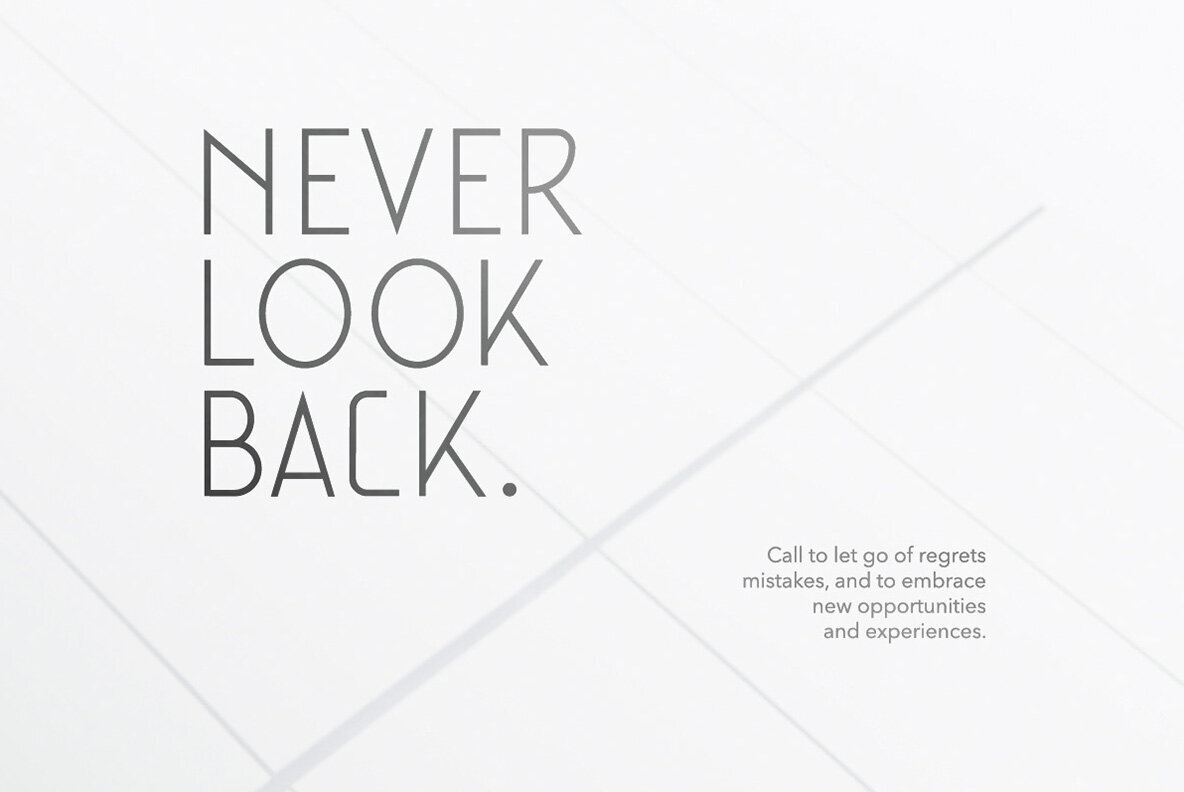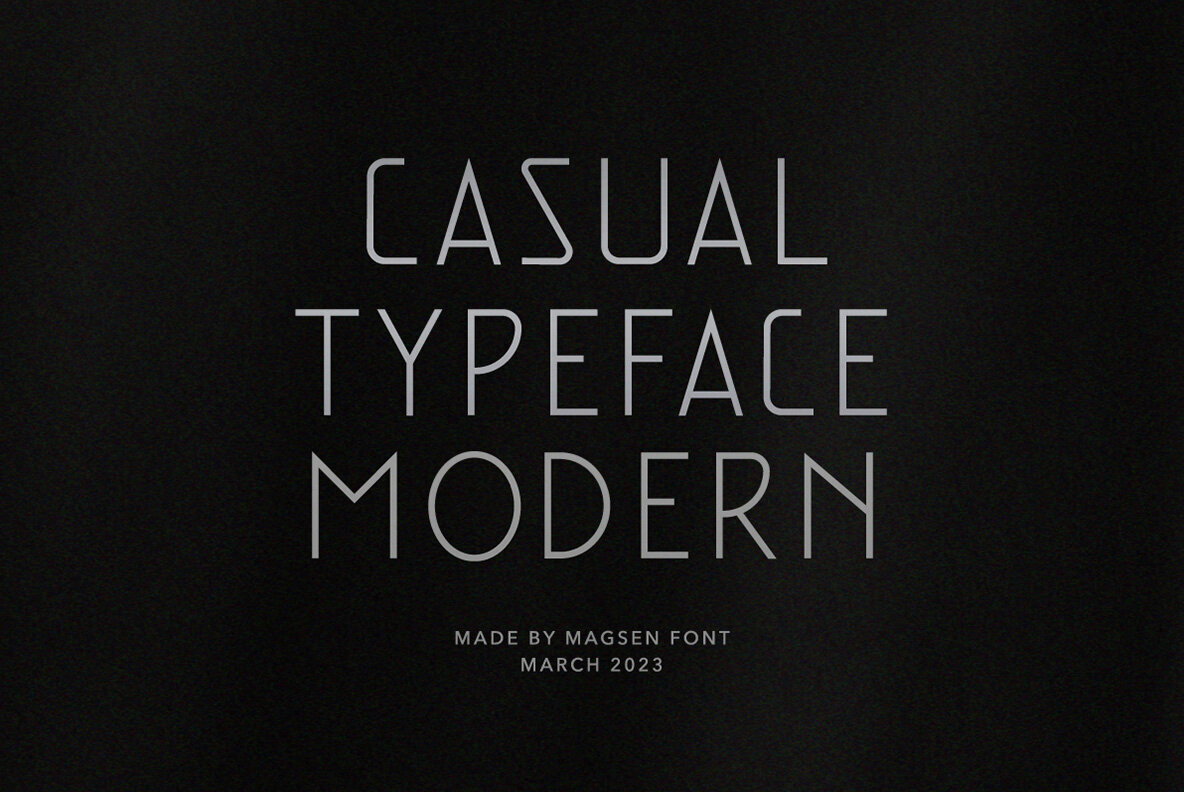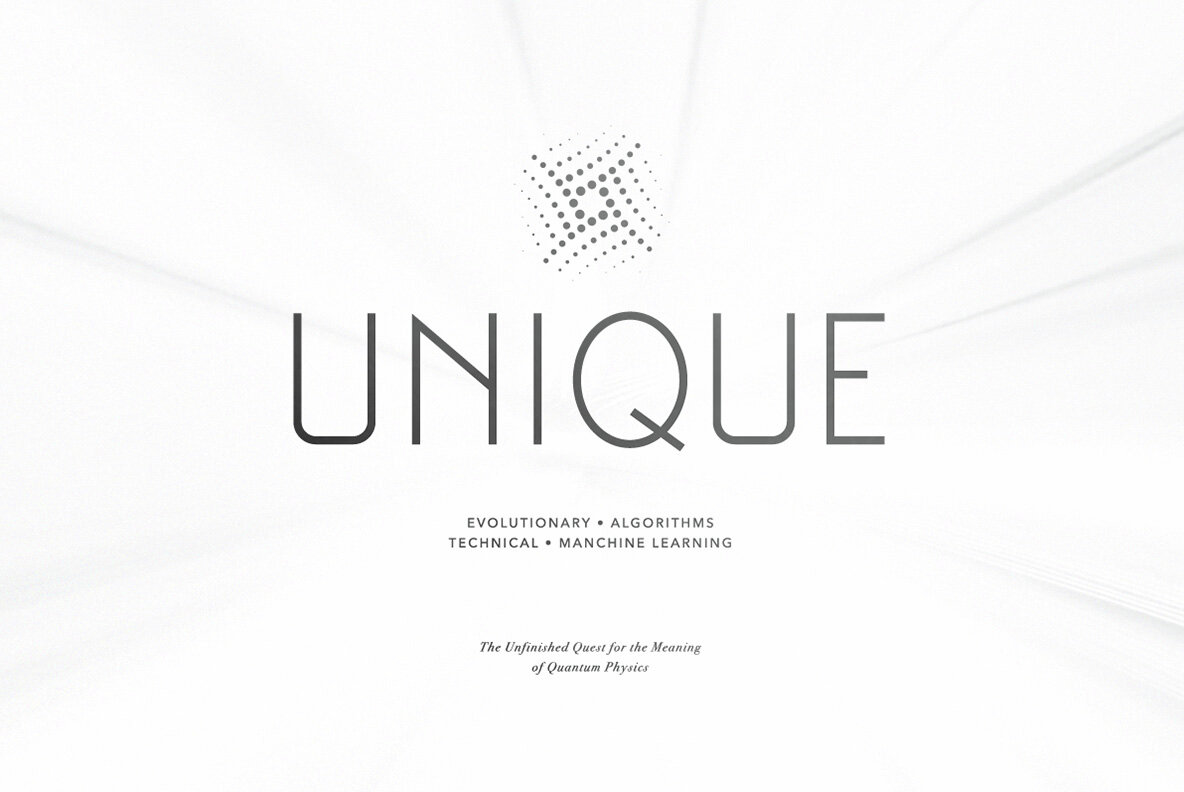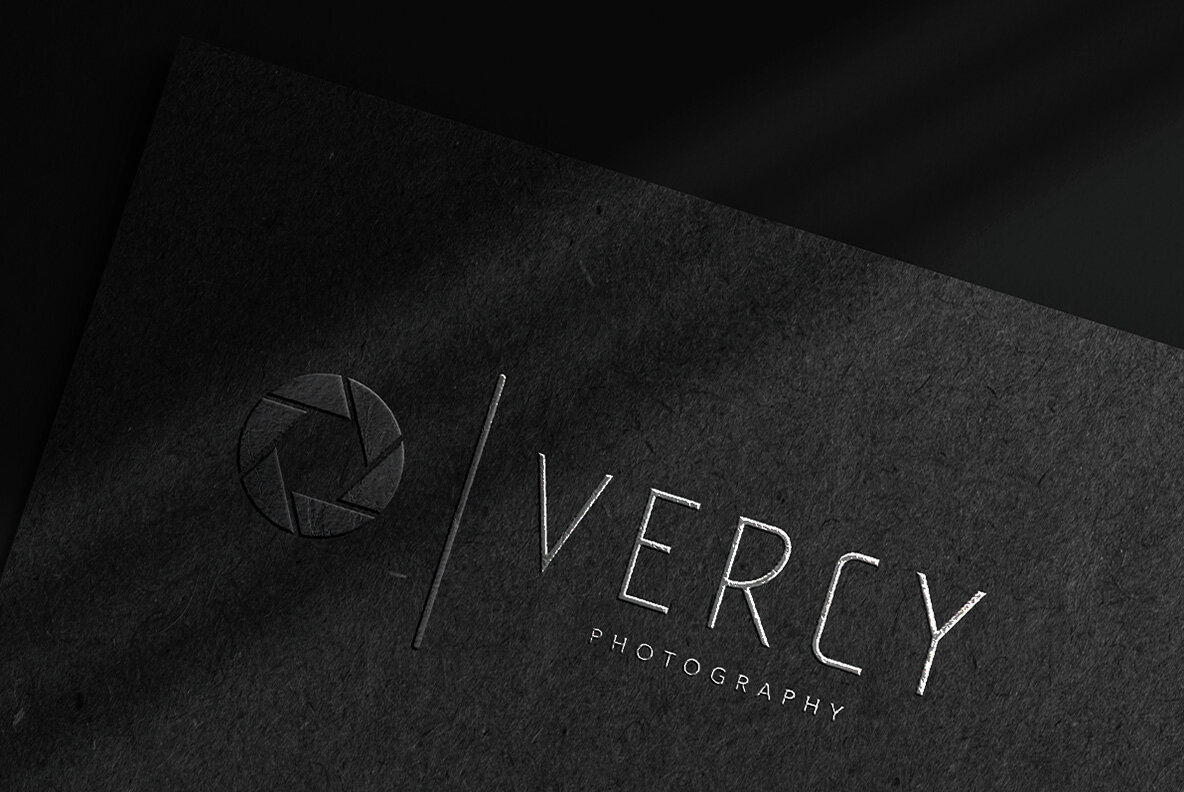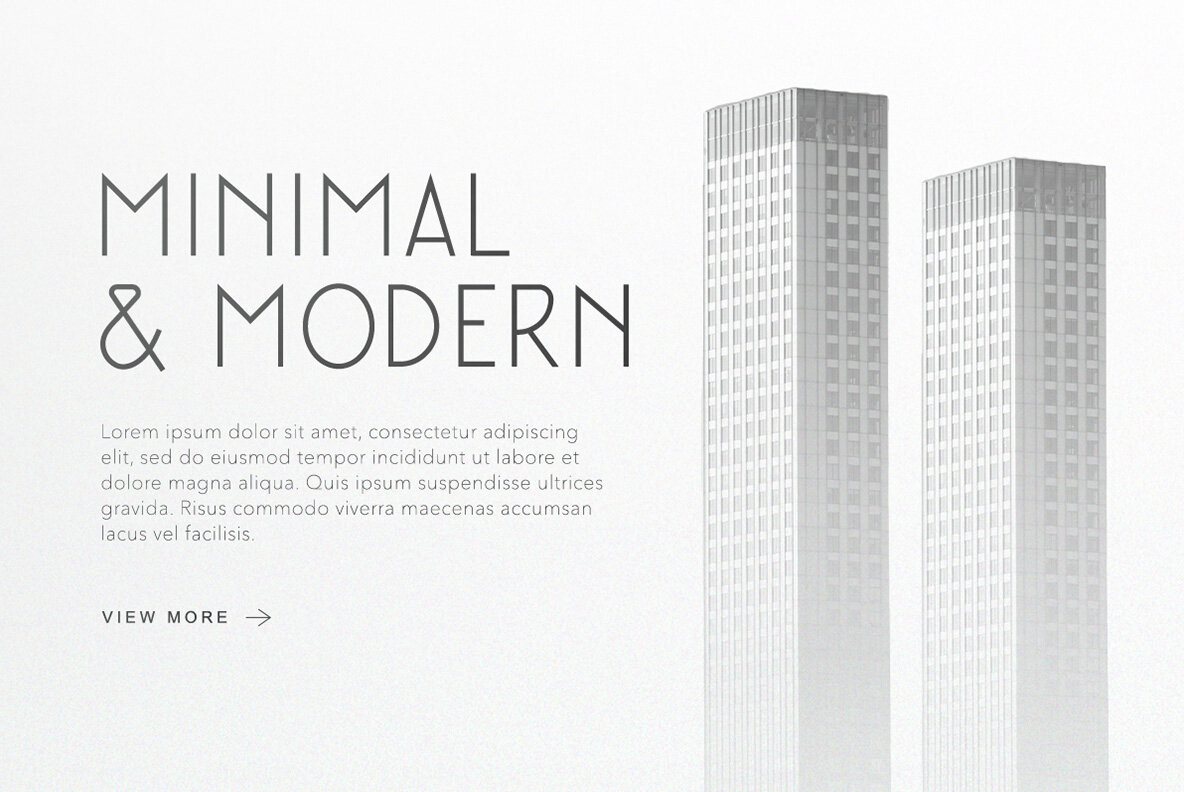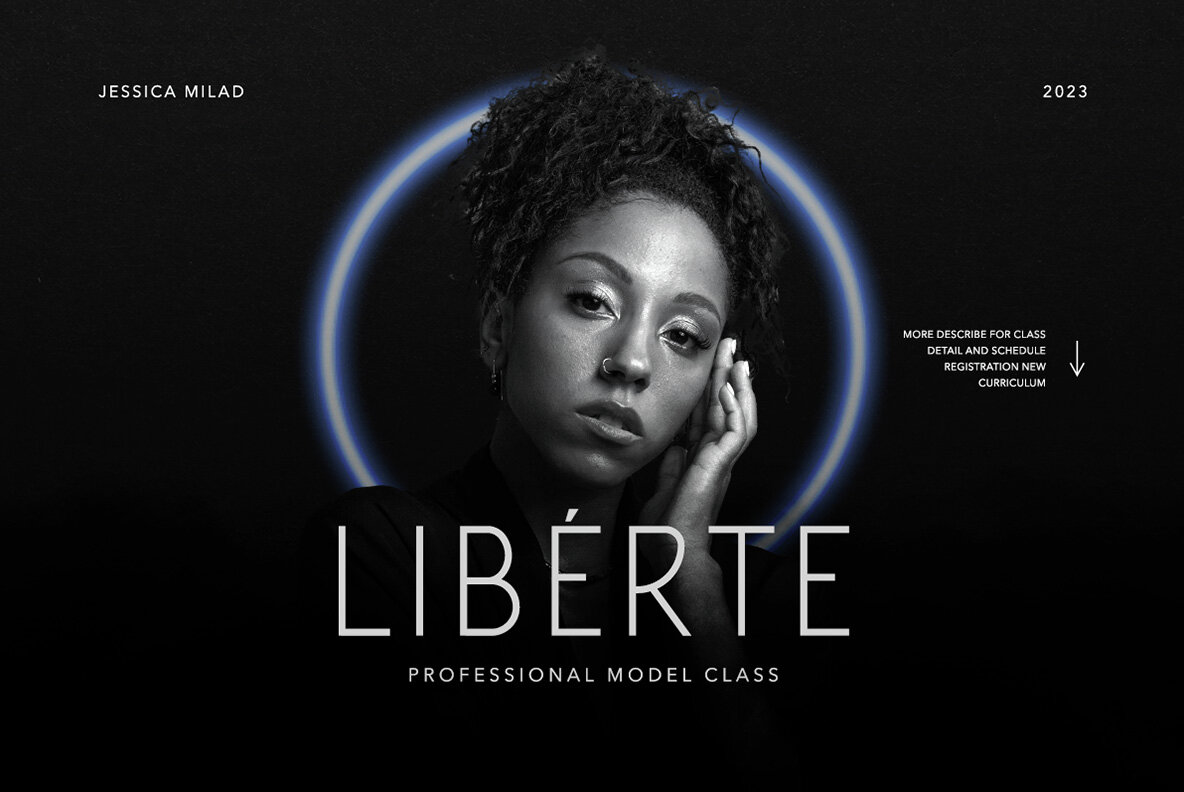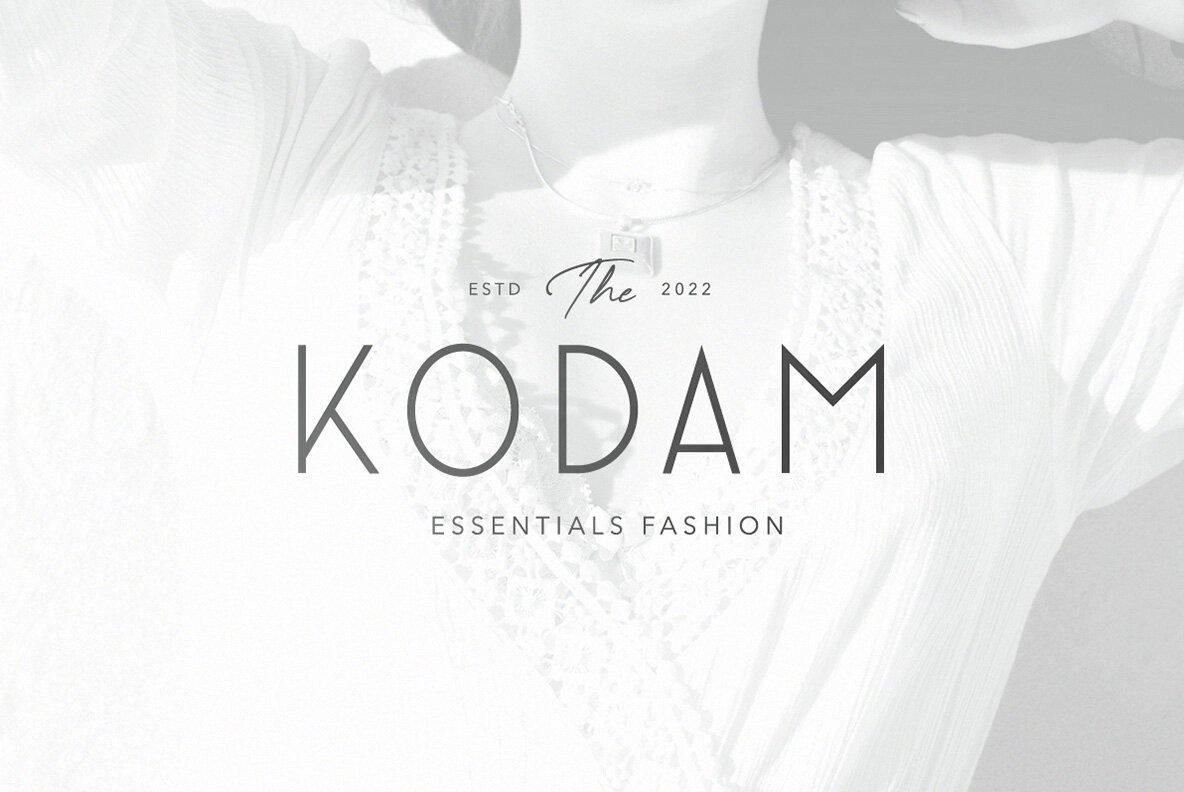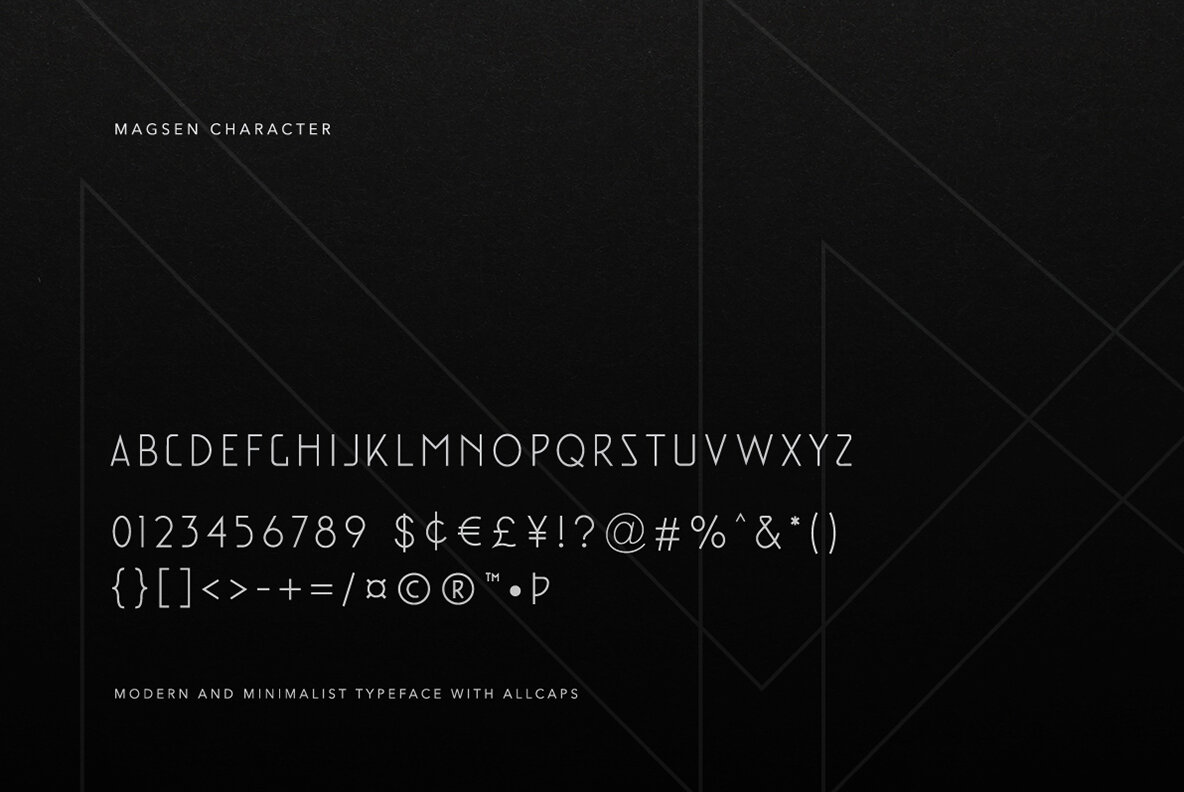
Magsen Font
Magsen Regular
Magsen is a modern sans serif font that combines elegance, minimalism, and a semi-technological vibe. Crafted with a focus on simplicity and clean lines, it offers a contemporary aesthetic that is perfect for designers seeking a modern, minimalist look.Magsen: A Modern Sans Serif with Elegance and Minimalism